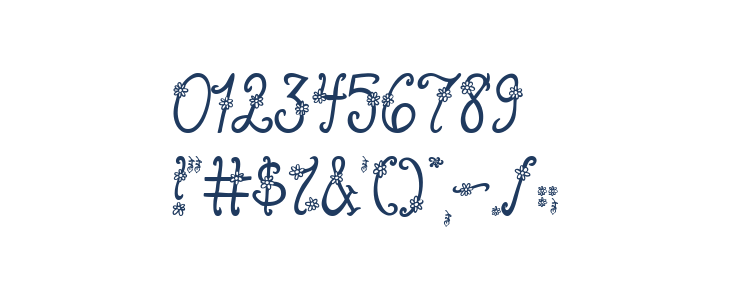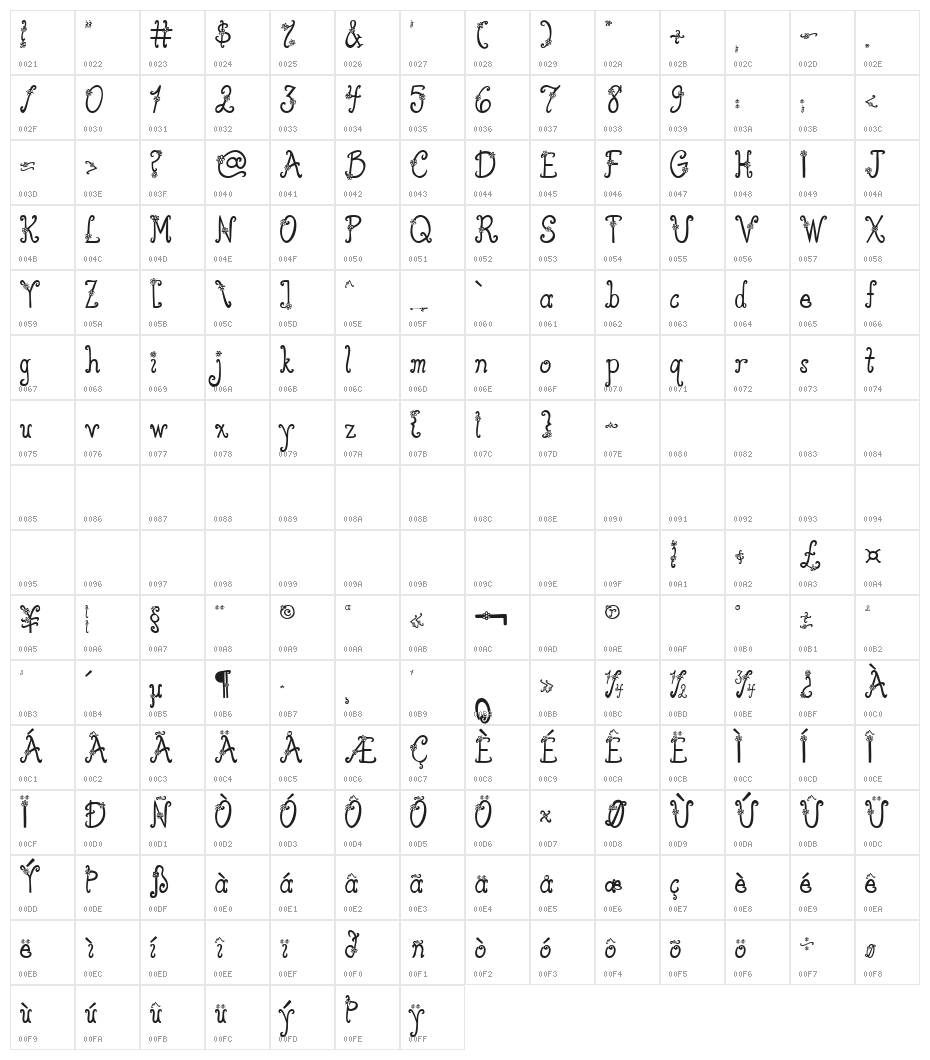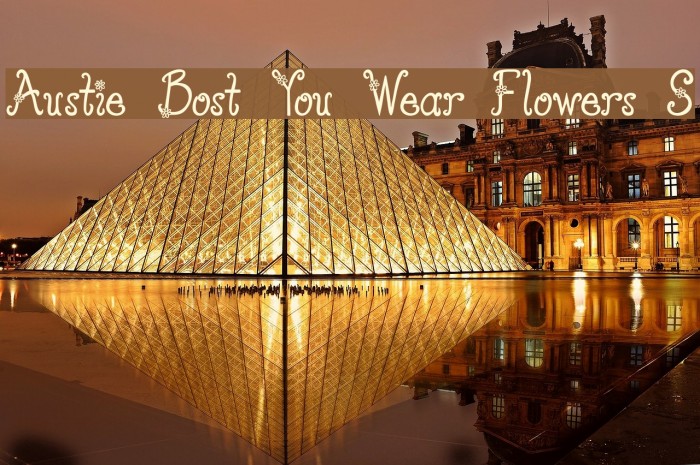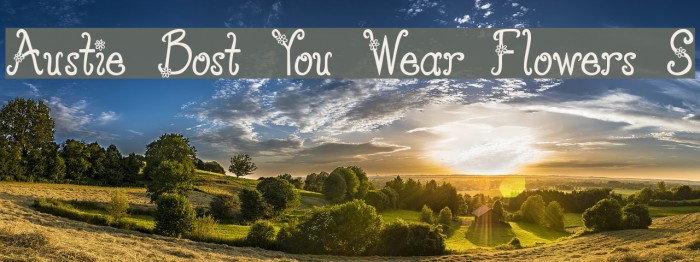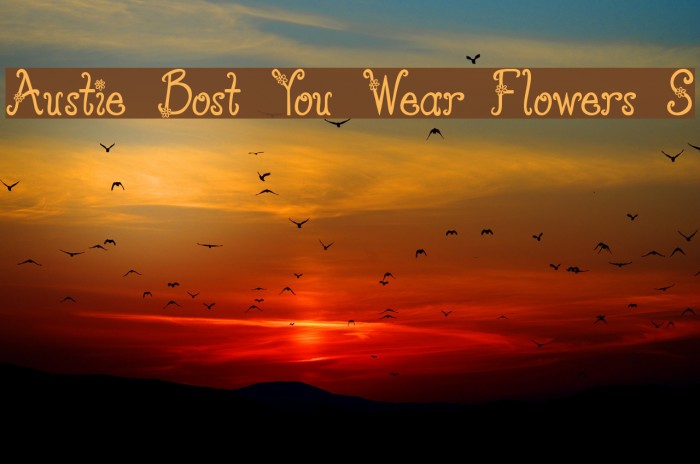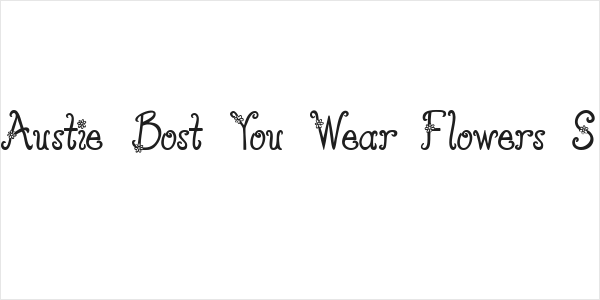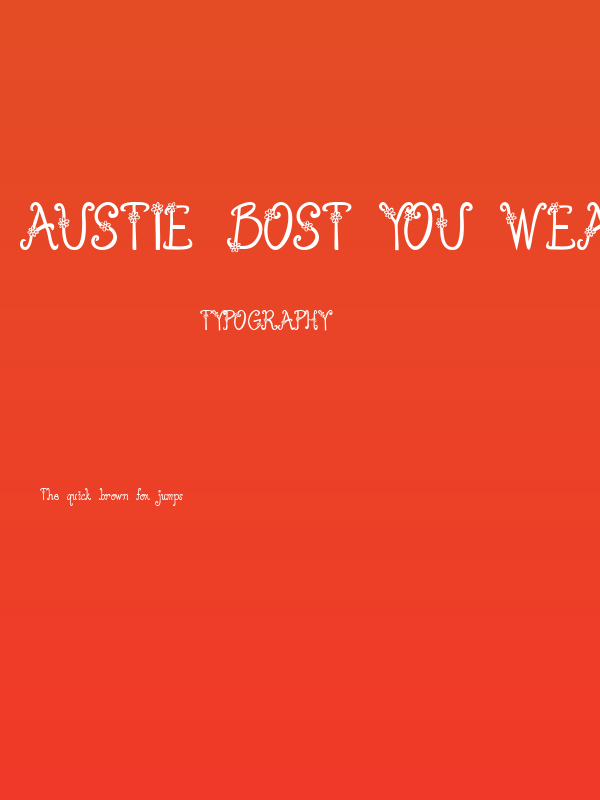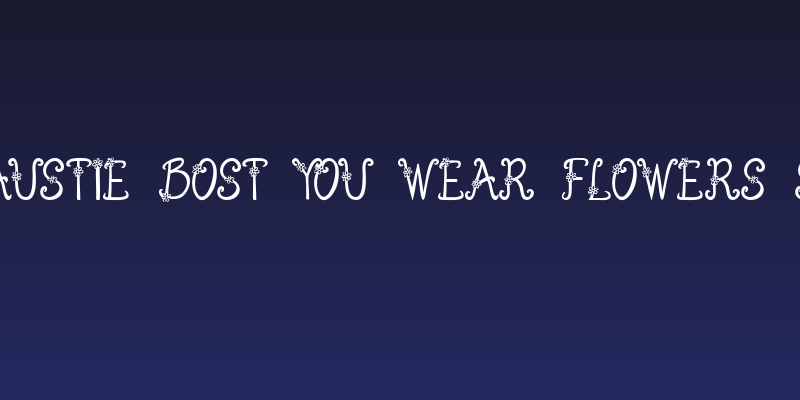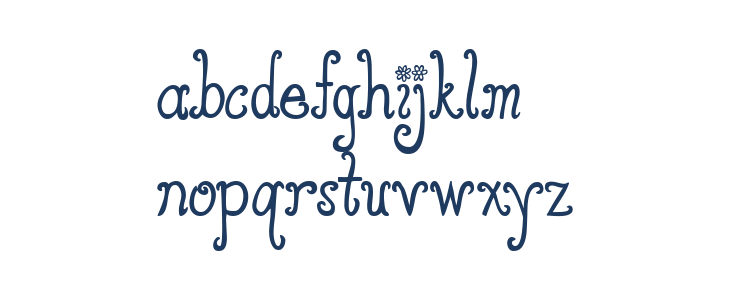
Austie Bost You Wear Flowers S Font
Austie Bost You Wear Flowers S Description
This whimsical and decorative font features playful floral embellishments integrated into the characters, giving it a unique and charming appearance. The letters are curvy and slightly exaggerated, with a hand-drawn feel that adds to its playful nature. The floral elements are tastefully placed, enhancing the overall aesthetic without overwhelming the design. This font is perfect for projects that require a touch of whimsy and creativity, such as invitations, greeting cards, or children's book covers. Its distinct style makes it stand out, making it ideal for headlines or decorative purposes.
| Use Case | Headlines, Decorative text |
| Proposed Projects | Ideal for invitations, greeting cards, children's book covers, and decorative headlines. |